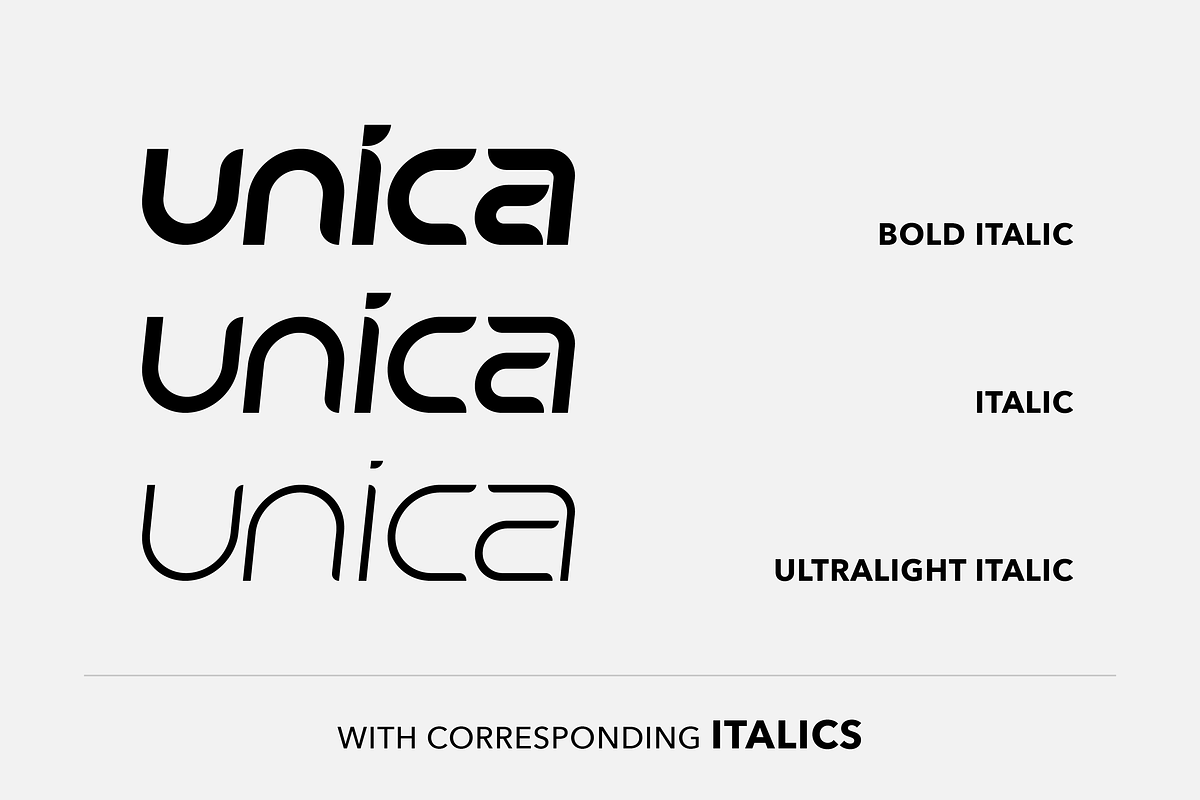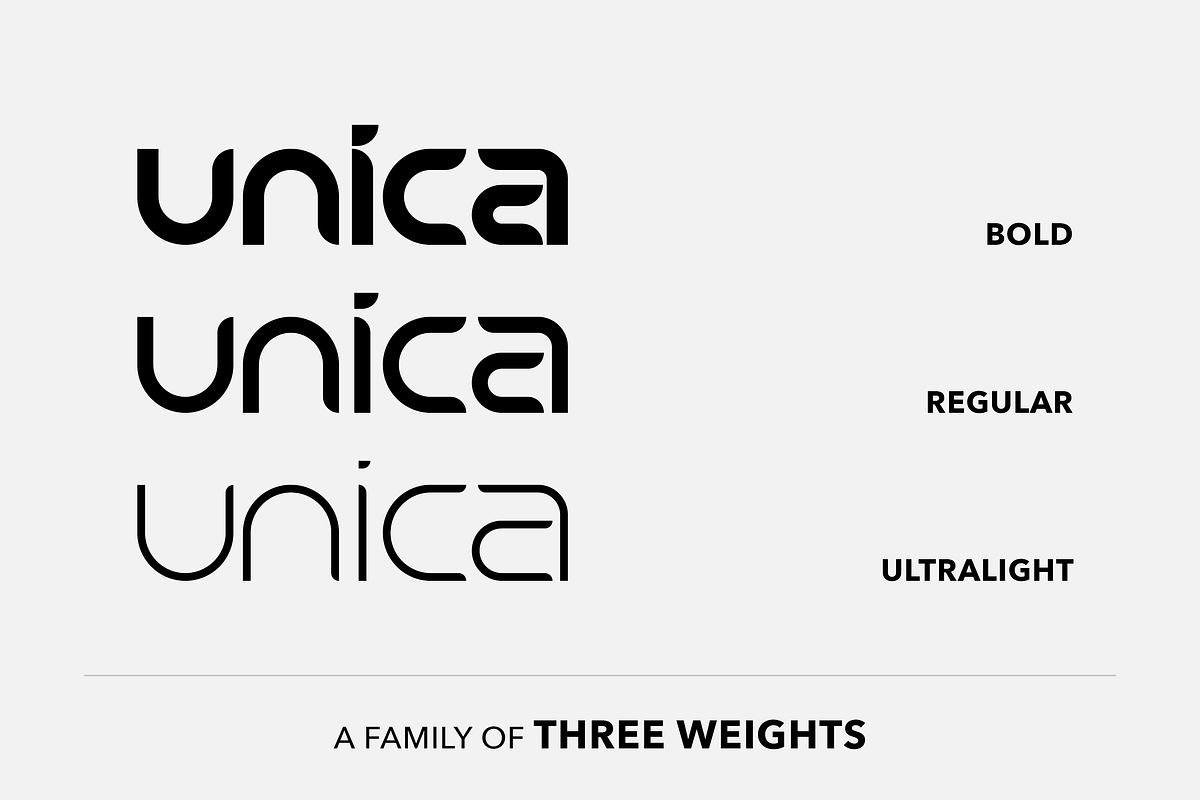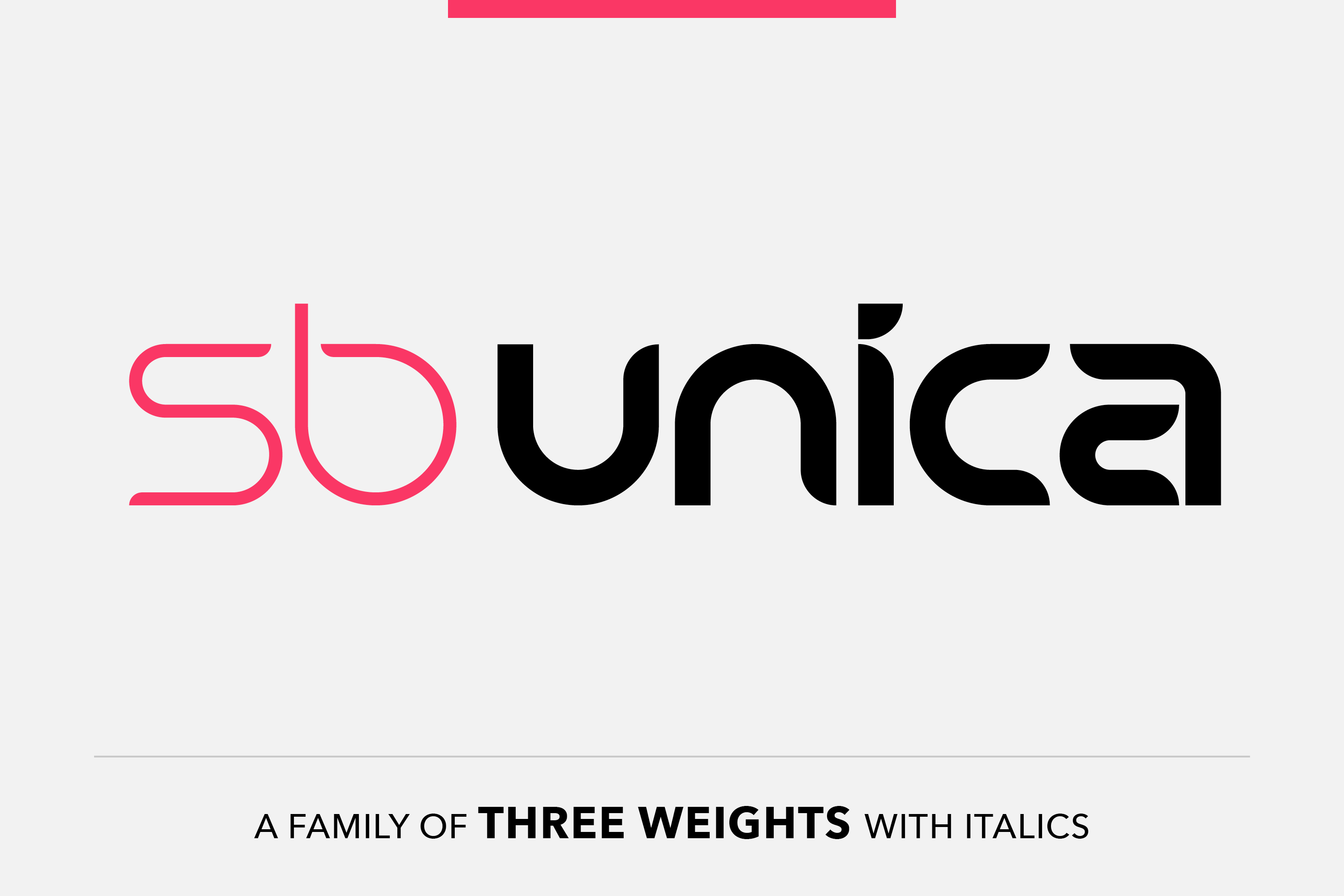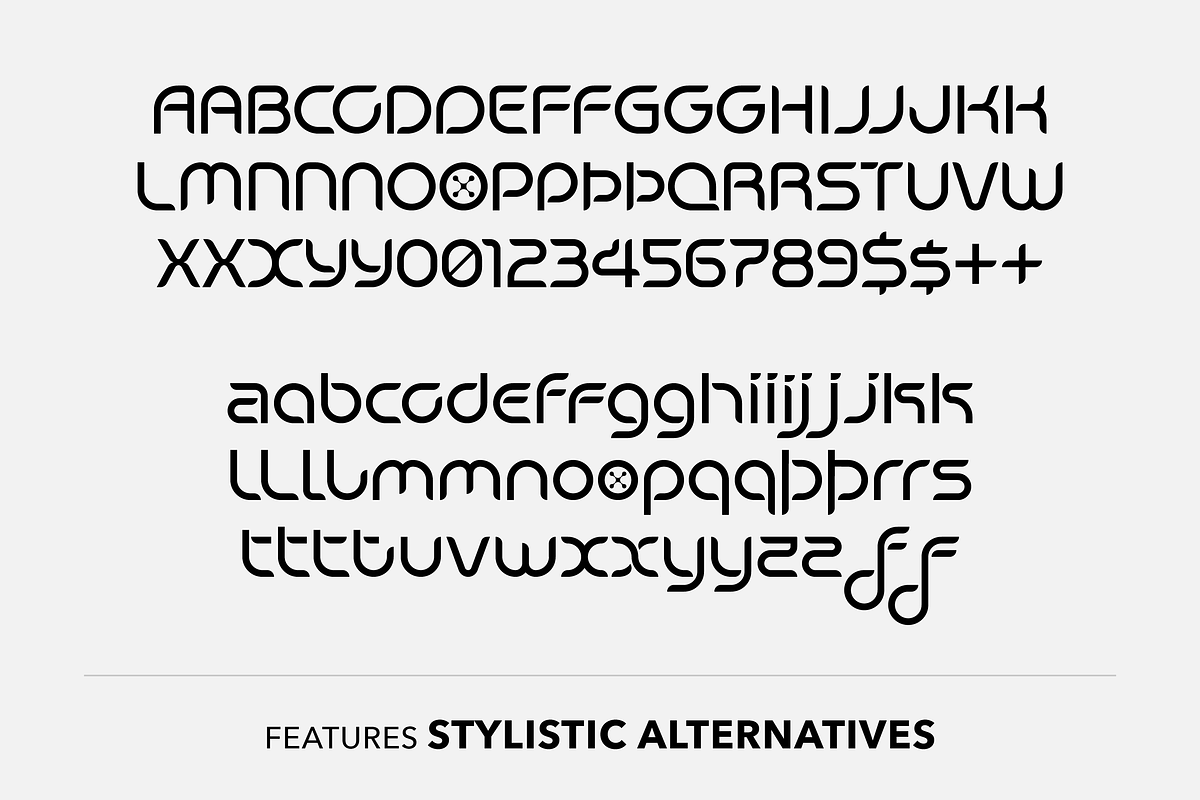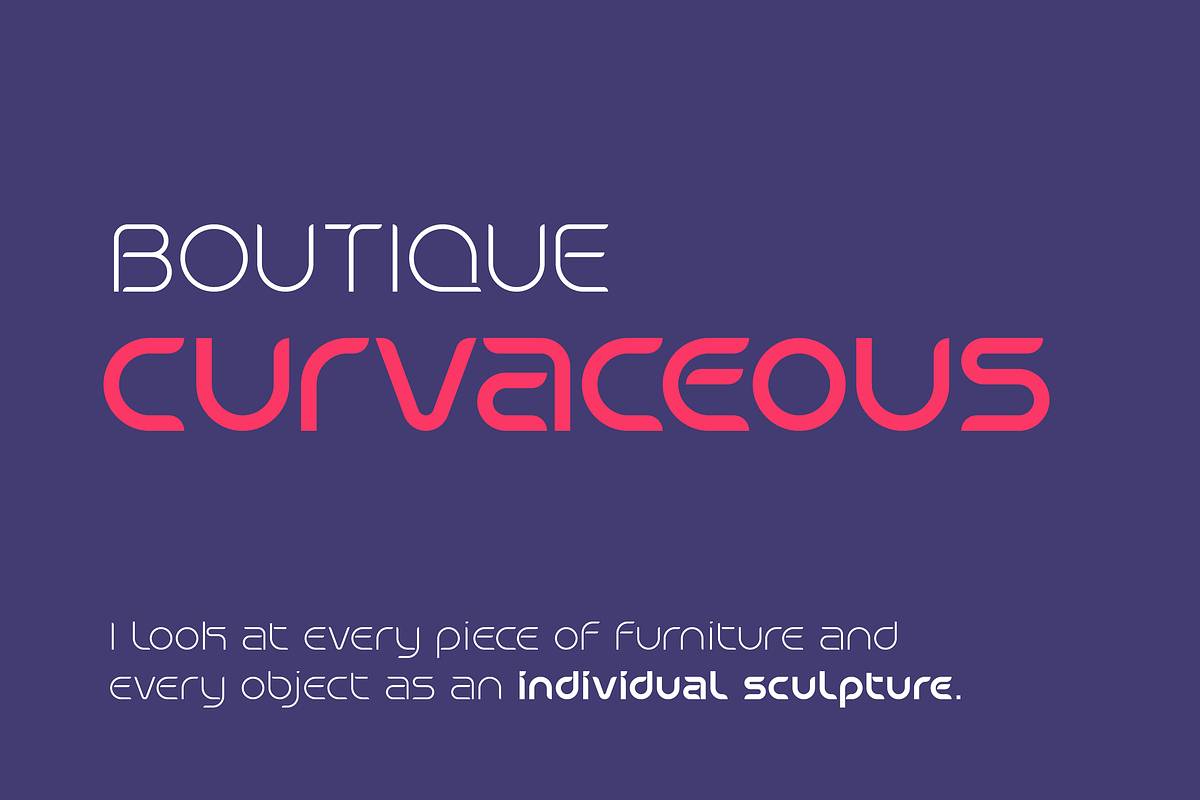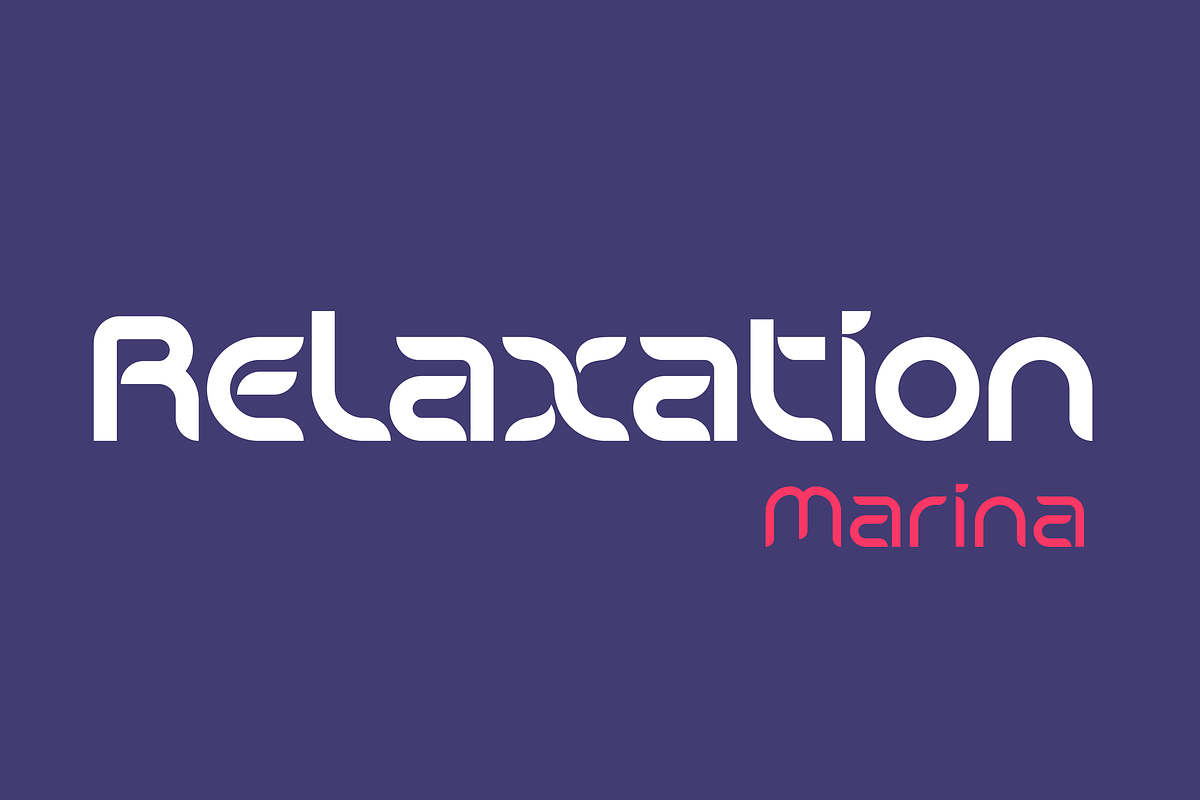
Unica - elegant font
SB Unica is a geometrically constructed sans serif designed for display use. It has a smooth, elegant quality that lends itself to projects based around the themes of beauty and health. It also works well for luxury items, perhaps for food packaging, hospitality or service branding.